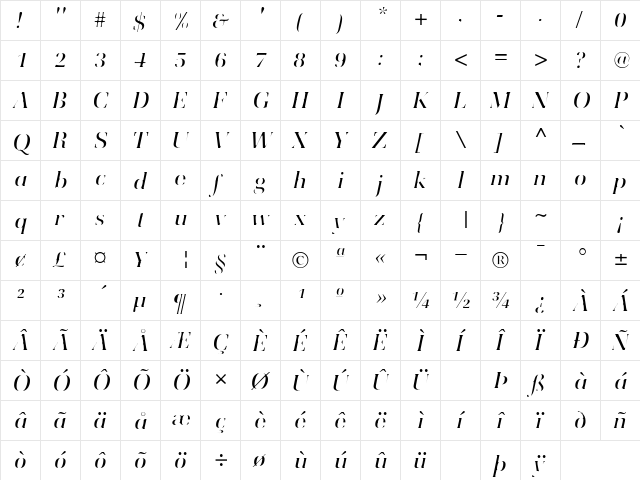
Utile Italic
Design Context for Utile Typeface
Utile is a composed and adaptable typeface that performs quietly and consistently across a wide range of design contexts. Its italic angle brings a sense of urgency and motion to the letterforms.
Pro Tip: Try Utile for annotation and caption copy alongside an upright companion — the contrast in angle creates a dynamic but ordered typographic system.